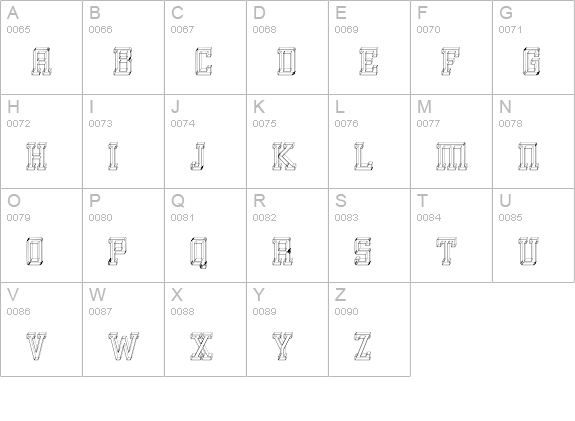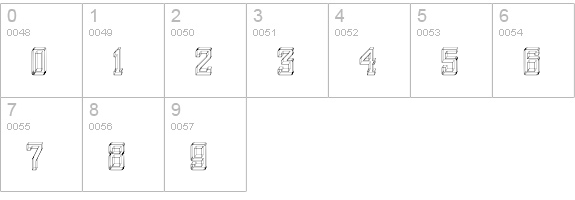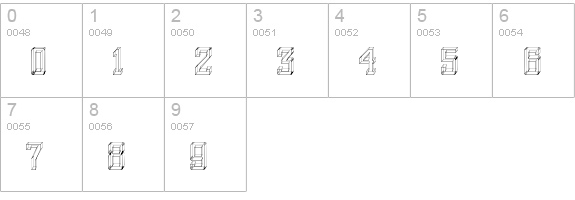
GlassBlocks font is a modern and stylish typeface that combines sleek lines with a geometric design. Its clean and contemporary appearance makes it perfect for a variety of design projects, from branding to social media graphics. The unique block-like shapes give this font a distinct look that will make your text stand out. What's even better is that GlassBlocks font is completely free to download at FontsMarket.com. You can easily access this eye-catching font and add a touch of sophistication to your creations without breaking the bank. Whether you're a designer looking to elevate your projects or a content creator wanting to enhance your visuals, GlassBlocks font is a fantastic choice that won't cost you a thing. Download it today and start creating stunning designs with this stylish and versatile typeface.